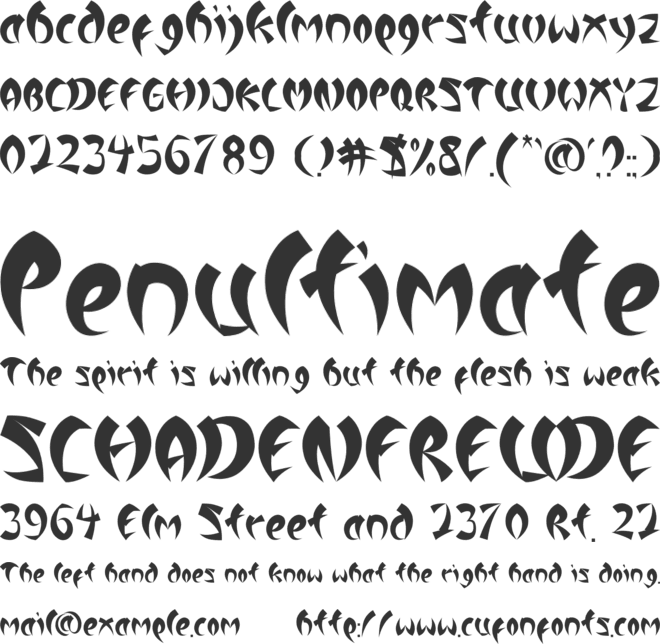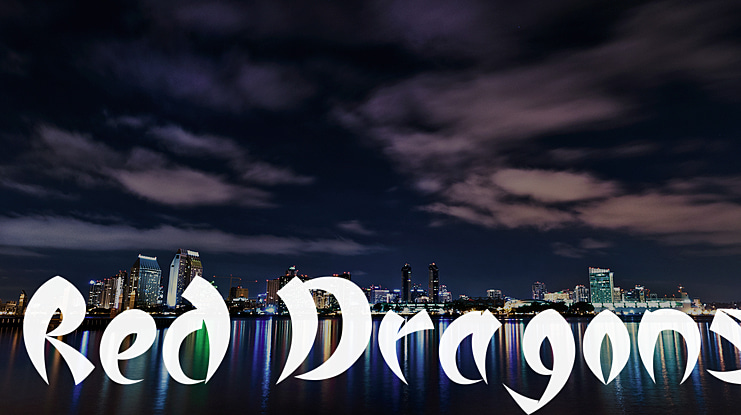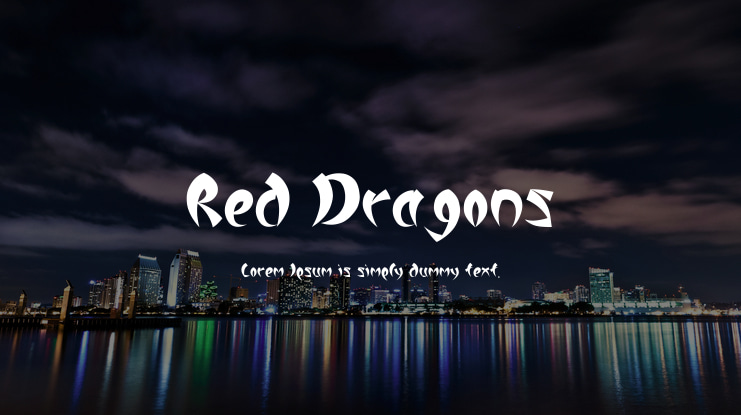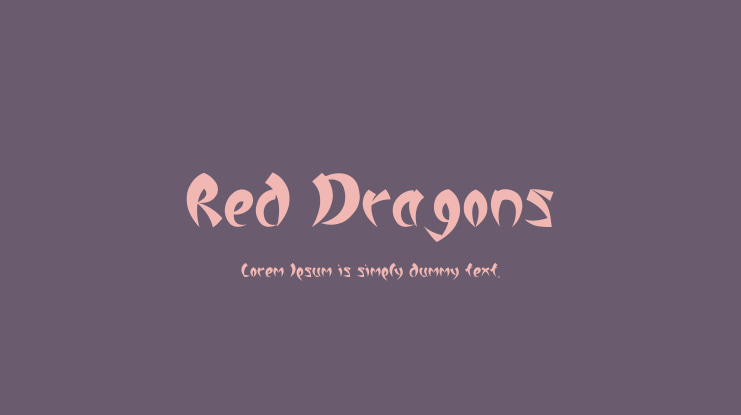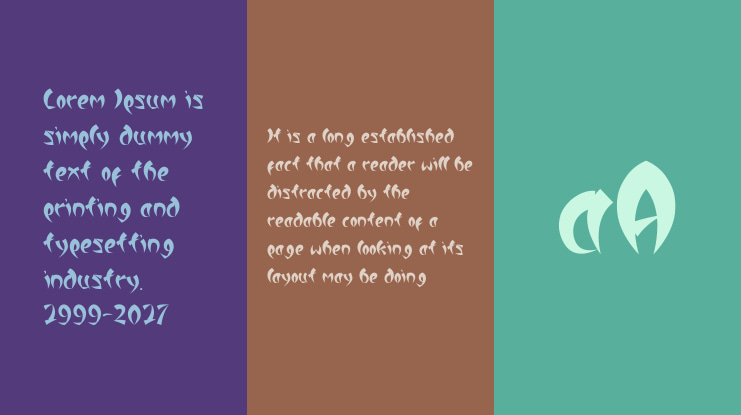
Red Dragons Font Family
Introducing our new release,Red Dragons Chinese Display Typeface. This typeset is perfect for brand logo, invitations, greeting card, or even any kind of project. With multilingual feature and style variations, this typeface would further enhance the aestethical aspect of your work.